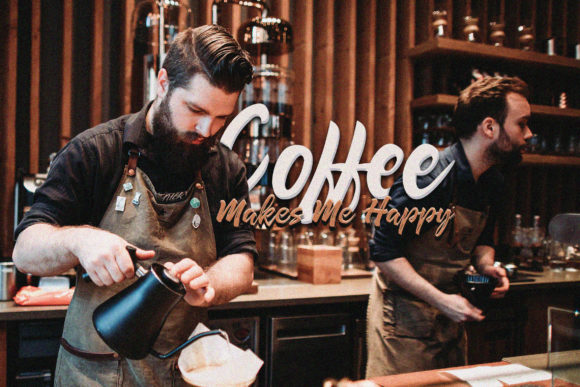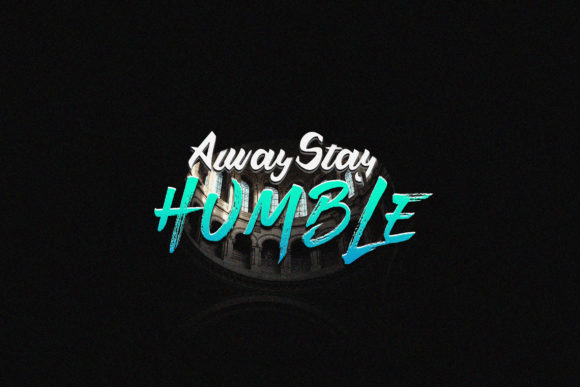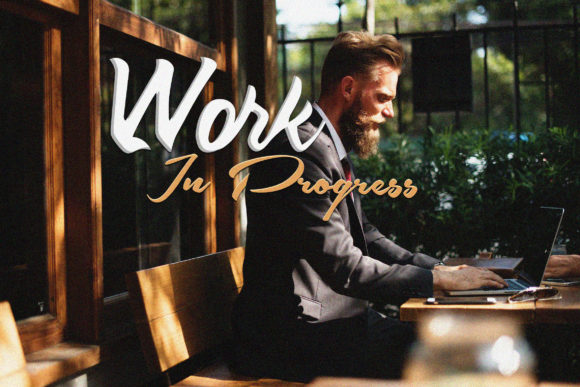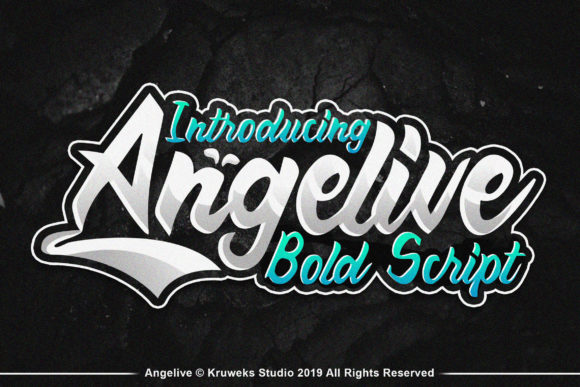
Angelive Script Font
The Angelive is a bold, yet elegant script font. It’s suitable for logos, advertisements, wedding invitation designs, quote titles, header titles, power points, and is designed to maximize your design’s artistic and character placements.